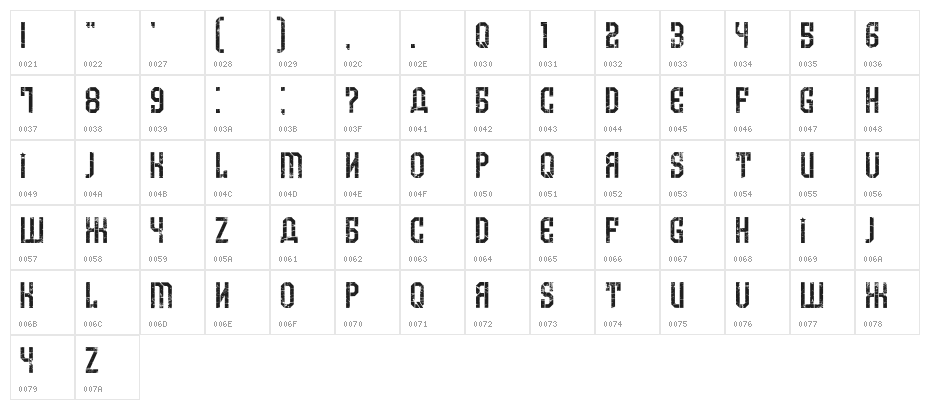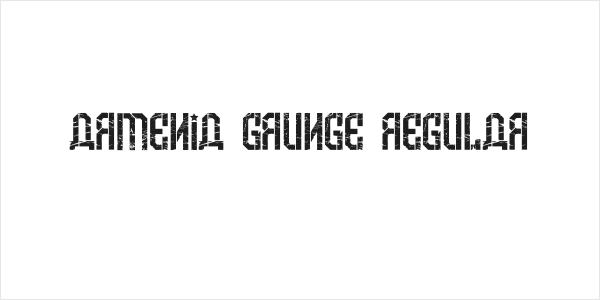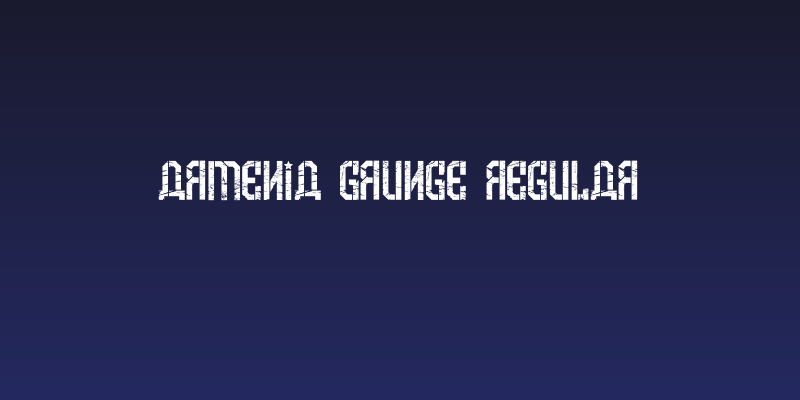
Armenia Grunge Regular Font
Armenia Grunge Regular Description
This font features a bold, distressed style with a grunge texture that gives it a rugged, worn appearance. The characters are blocky and geometric, with sharp angles and a consistent thickness throughout. The distressed effect is prominent, adding a sense of age and weathering to the text. This style is reminiscent of industrial or urban themes, making it suitable for designs that require a gritty or edgy look. The uppercase and lowercase letters maintain a uniform height, while the numbers and special characters follow the same distressed pattern, ensuring a cohesive appearance across all elements.
| Overall Style | Grunge, Industrial |
| Proposed Projects | Ideal for album covers, posters, urban-themed designs, and branding that requires a gritty, industrial feel. |